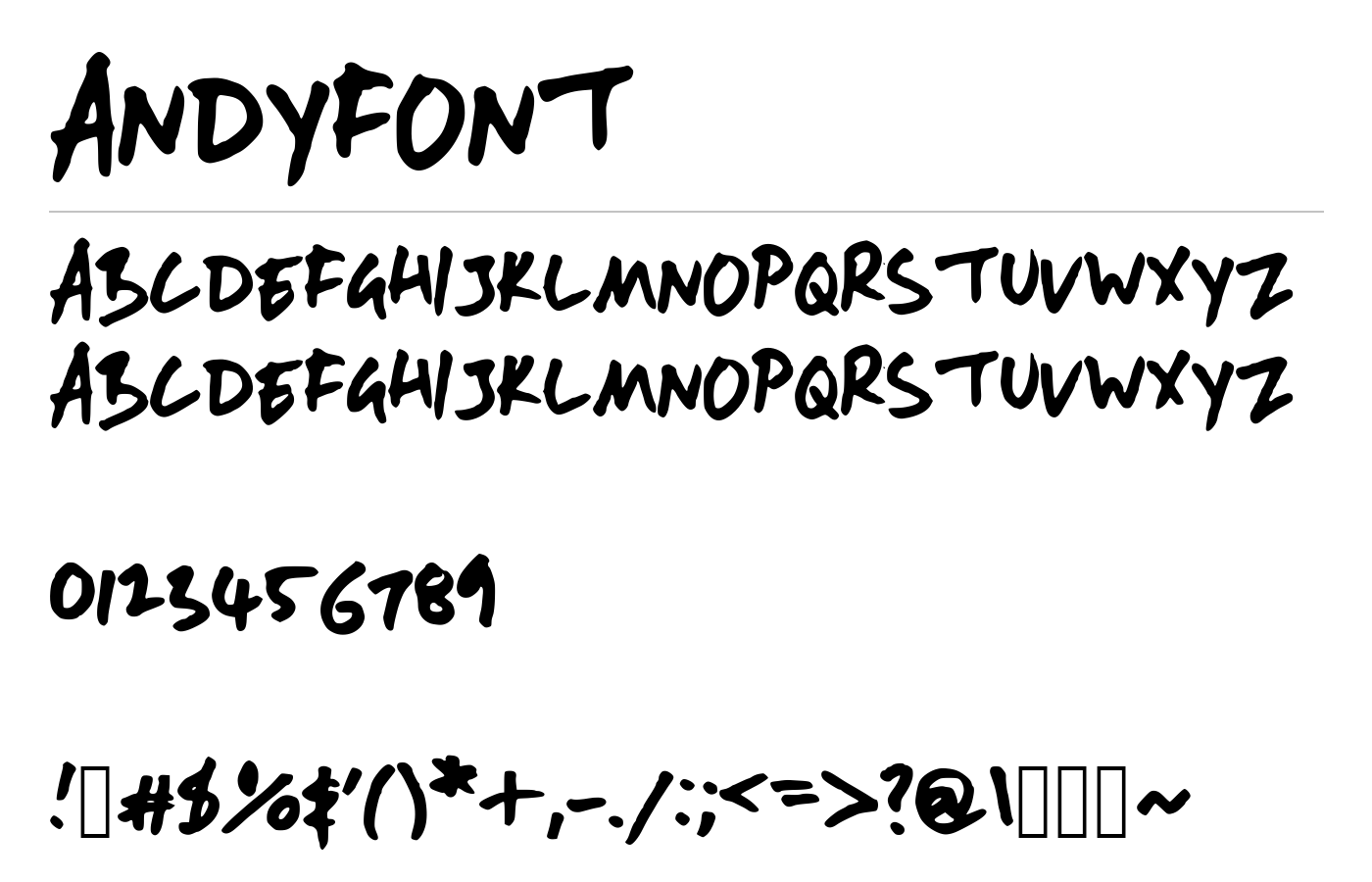
AndyFont is a bold, casual handwritten script that brings a lively and personal touch to any design. Its slightly irregular, organic strokes create an energetic and friendly vibe, making it perfect for informal branding, creative projects, and fun headlines that need a human, approachable feel.
AndyFont
About AndyFont